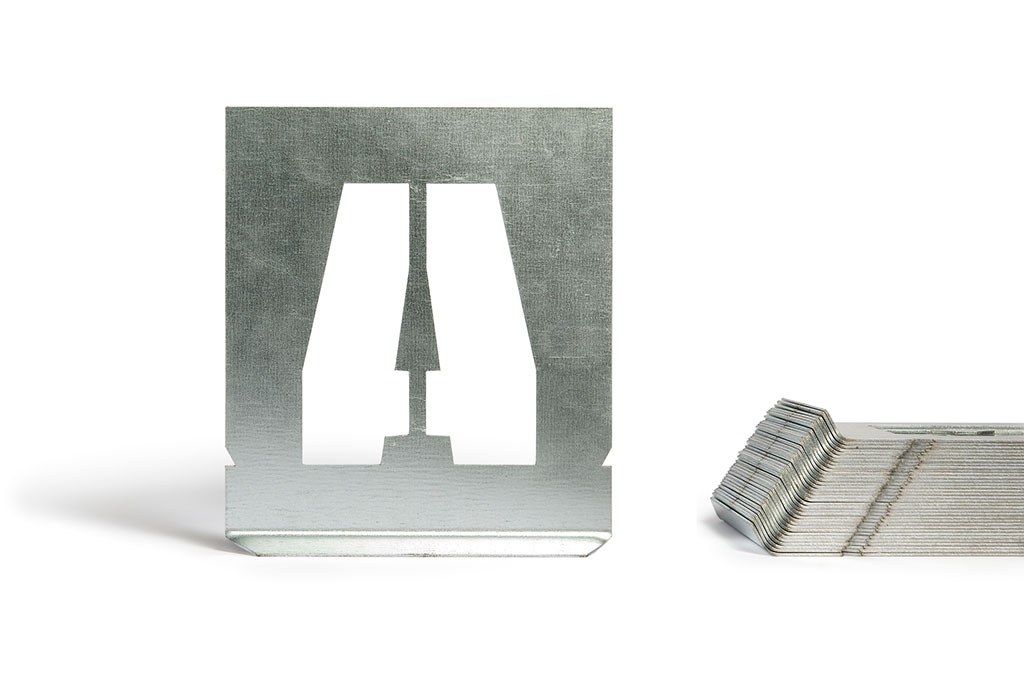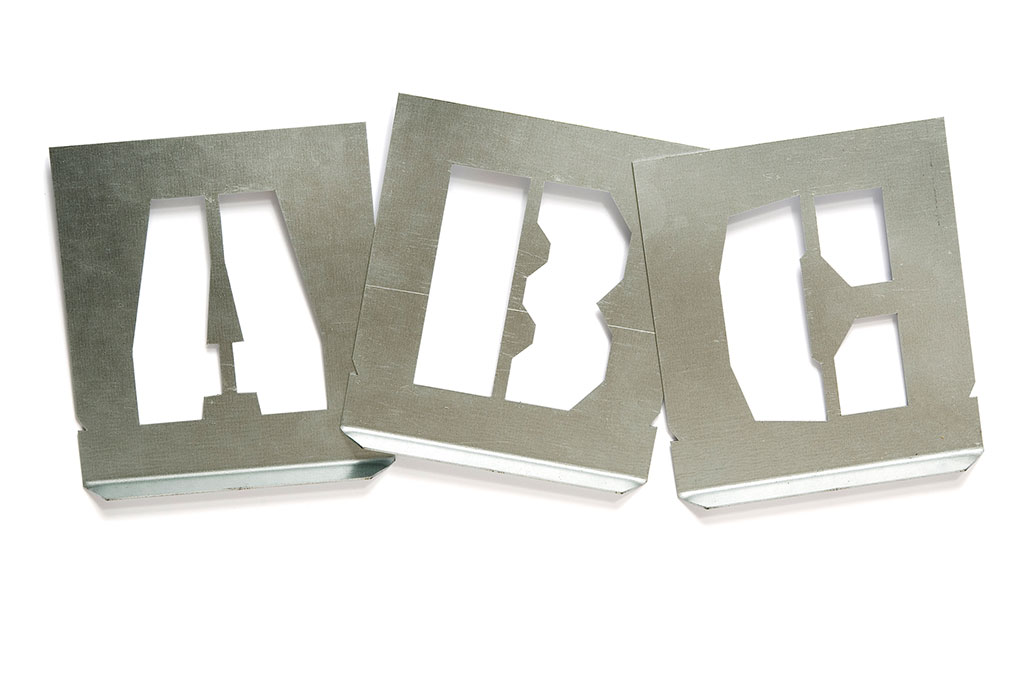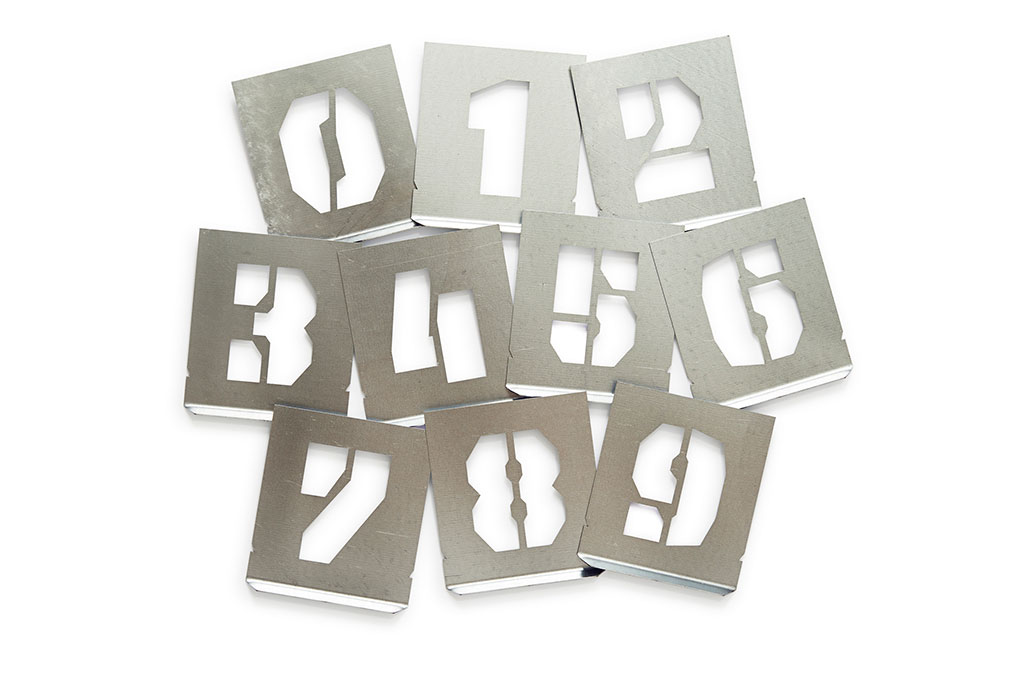
We’re happy to announce the latest news on web typography. Every wondered how to recognise poor web typography? Why is it that micro-typography on the Internet lags centuries behind? What is the connection between text lines and Laurel & Hardy? Why is web typography actually a misleading designation? This newspaper tells in a nutshell what designers should keep in mind when deciding on typography for web users, including key design-elements and often overlooked facts.
24 pages full of typographic wisdom and experiments. Everybody who designs for screens should read why web typography sounds good, but looks awful, so get your own Zeitung newspaper.
The new Safari Typo Amsterdam publication is currently on display in the Athenaeum bookstore at Spui square, right in the middle of the heart of the middle of the city centre. So very very very central in Amsterdam. It’s very touristic there as well, a perfect location to display a tourist guide. We love shop windows. We really do. In case you question this, no need to Google that, just search for shop window on this site. Tourists can now expand their mind by exploring the typographic side of the Dutch capital. This 50-year old legendary bookshop is a nice starting point.
Safari Typo Amsterdam is a brief typographic tour of letters in public space in the Dutch capital, presented by type designer Bas Jacobs. If you’re willing to leave the well-trodden touristic paths, let letters guide you across Amsterdam. If you have seen enough touristic traps, or don’t want to see them at all, this tour will take you to various parts of the city you would otherwise have missed. Discover how architects, artists and designers left their mark on the city by means of the letters they created on buildings, on bridges, on monuments and elsewhere. This pocket-size book is easy to carry with you as you explore the city. This book is only meant for tourists ready for a mind-expanding experience.
Part 1: Amsterdam school & its contemporaries
Lettering in public space by architects & artists
How did architects leave their typographic mark on the city during the interbellum period, and how do contemporary architects and designers respond to this? Featuring letter forms by Piet Kramer, Martijn Sandberg, Reinoud Oudshoorn, Anton Kurvers, Janno Hahn, Hijman Louis de Jong & Rene Knip.
Part 2: Letters with a story
The extravaganza uncensored tour
Can letters tell you a story which you cannot directly read from the letters themselves? The stories behind the letters are as interesting as the letter shapes themselves. This uncensored safari features letter forms by Adrian Frutiger, Jan van Krimpen, Hermann Zapf & Bert Johan Ouëndag.
Some stuff makes us sooooo happy. Ever since we released Tripper earlier this year, we have been playing around with real Tripper stencil sets ourselves. We decided to take them in production, so everybody can play around. Here it is: the let’s-not-fake-it-this-is-the-real-Tripper-stencil-set.
We know you’re sitting behind a computer screen now, and we know you are completely clean. Probably you are totally clean seven days a week, no? But look what can happen if you are willing to get your hands dirty. Go ahead, surprise your lover. Surprise your colleague. Surprise yourself.
Tripper stencil set
Wat hebben Laurel & Hardy met regellengtes te maken? Hoe kan het dat microtypografie op het web vijf eeuwen achterloopt? Is er dan nog hoop? Jawel. Letterontwerper Bas Jacobs behandelt als een snelheidsduivel in vogelvlucht de belangrijkste elementen van typografie op het scherm, van welbekende inkoppertjes tot vaak over het hoofd geziene zaken.
Omdat de tekst het verschil aanhaalt tussen lezen van een scherm versus lezen van papier, is de tekst op beide media beschikbaar.
The ‘Book of war, mortification and love’ contains a little note:
Wanna get the full voluntary suffering experience?
Step 1: Write down the page numbers of every page in this book containing the word ‘pain’.
Step 2: Send the page numbers to the publisher and earn the Authentic Martyr Certificate.
A while ago we received this handwritten letter:
Dear Mick, thanks for your letter.
We received plenty of emails which mentioned the correct page numbers, but as a true martyr you were the only one who candidly understood that real sufferers don’t send emails. They write a letter by hand instead. Well done, our compliments.
Additionally we should compliment you with the correct page numbers, you passed the test. Furthermore we appreciate your use of language, deepest hope to be granted the certificate for official martyr-dom (which actually should be martyrdom, but we’ll turn our blind eye to that). If that ain’t enough, you send us your compliments: I absolutely loved the book. The stories sometimes really got to me in an emotional way. Brilliant! We forgot to tell we don’t like to receive compliments, we like to suffer as much as we can. These 2 sentences almost destroyed your achievement, but we will be generous with you.
Being the epicenter of graphic design in Amsterdam, Nijhof & Lee is a bookstore you have to see while visiting Amsterdam. Feel and smell the love for books.
Book of war, mortification and love at van Stockum, Den Haag
Bookstore van Stockum is one of those bookshops which is always very eager to nicely present their books, which means our books as well. You might remember them from the extreme sauna book testing. Being close to central station in Den Haag, their window has lots of visibility for passersby. Mr. Linssen is watching you.